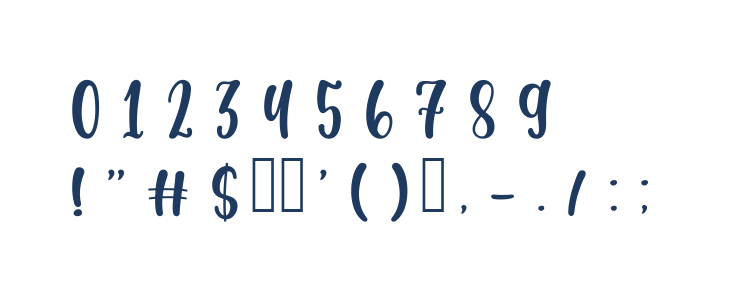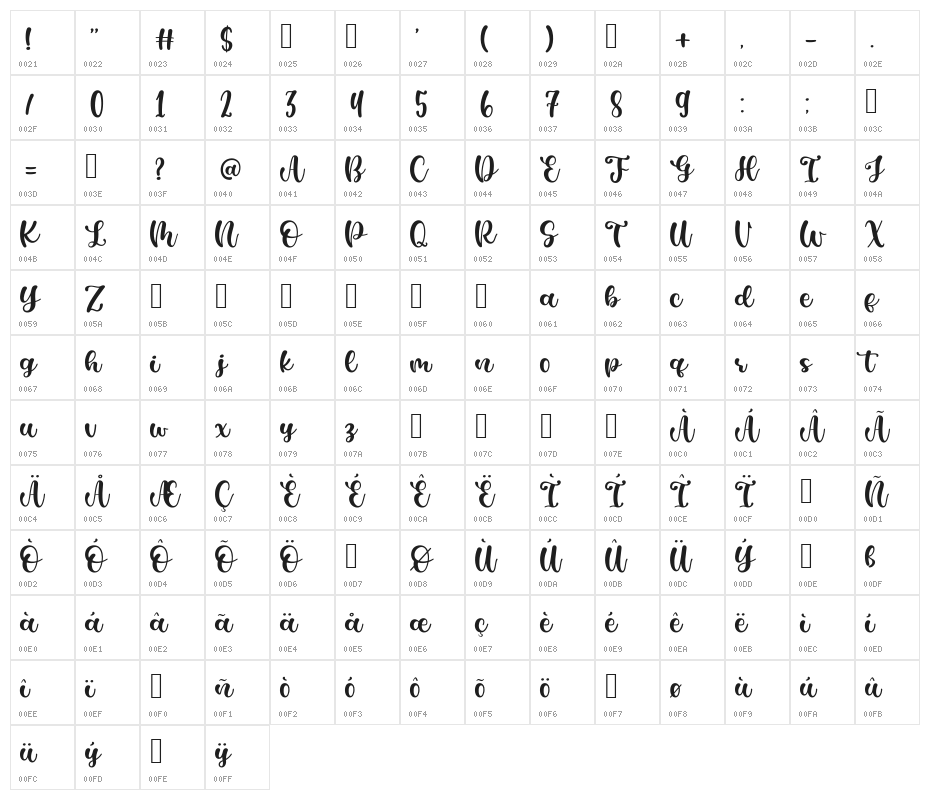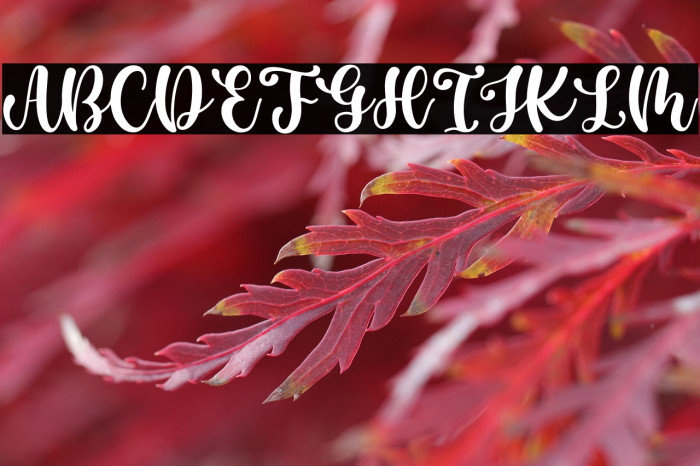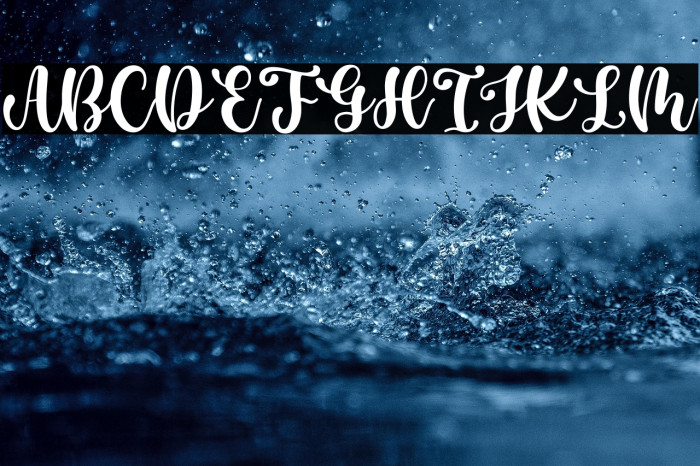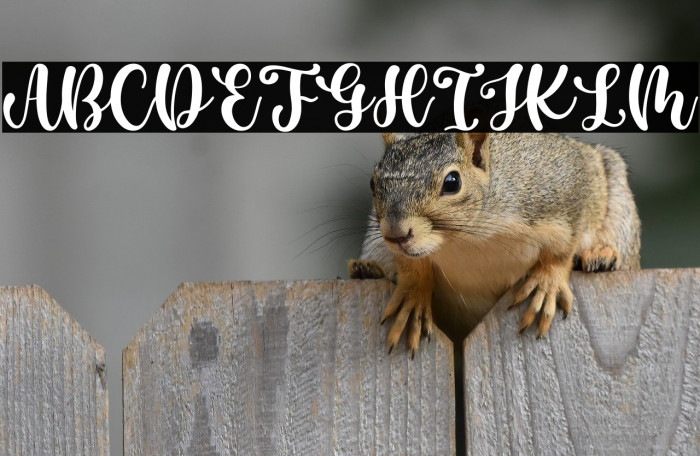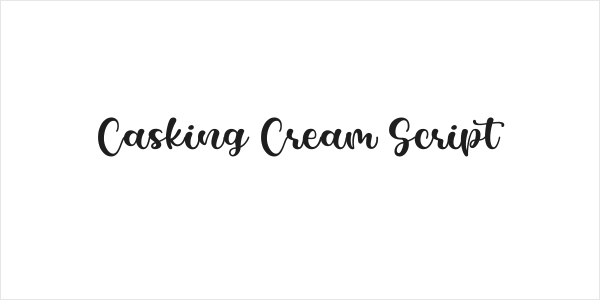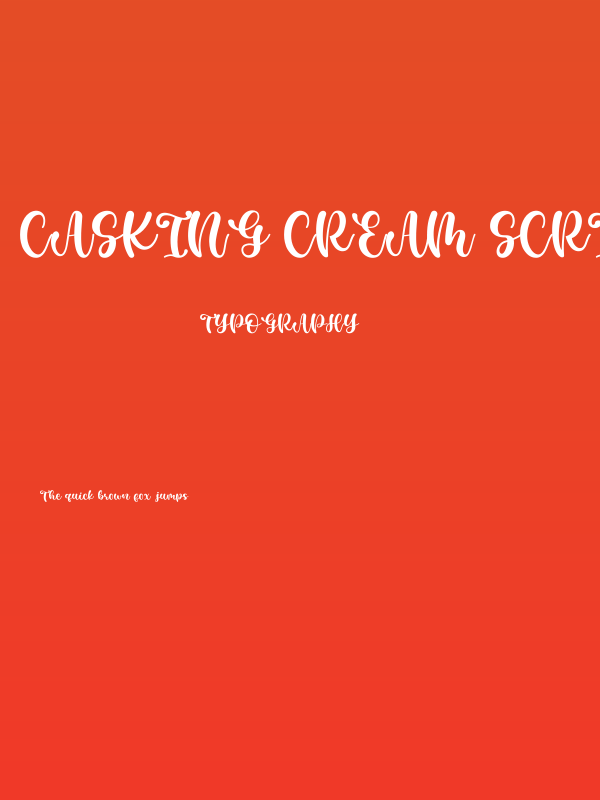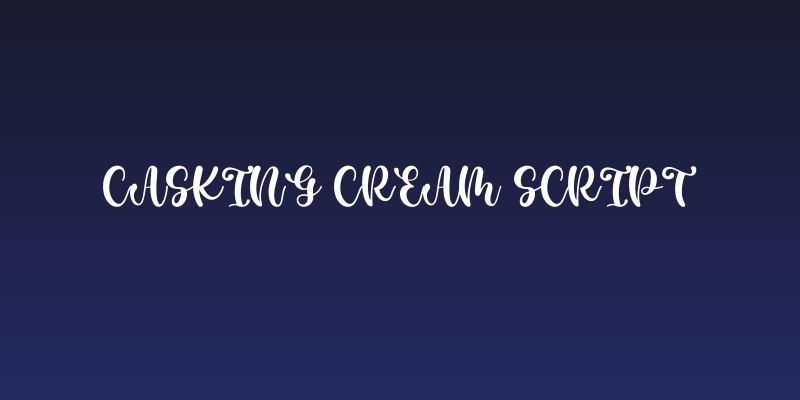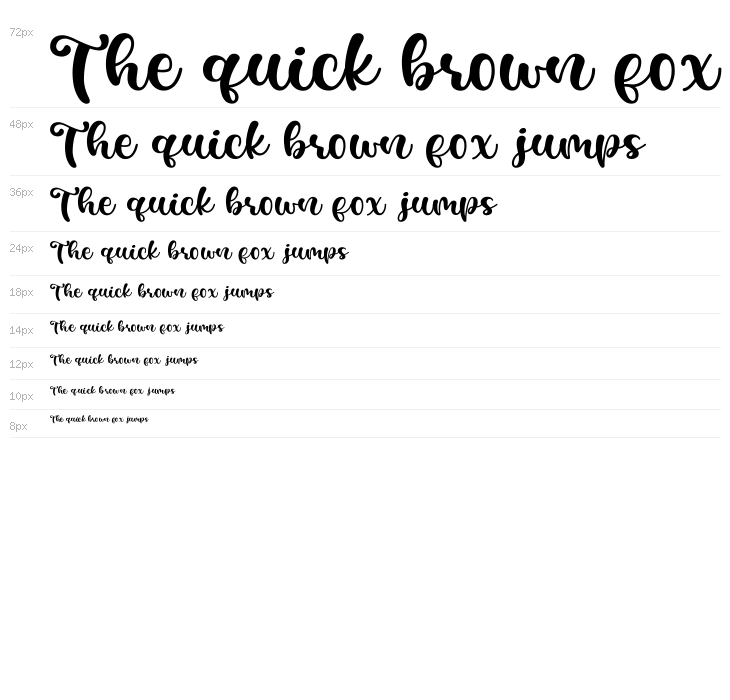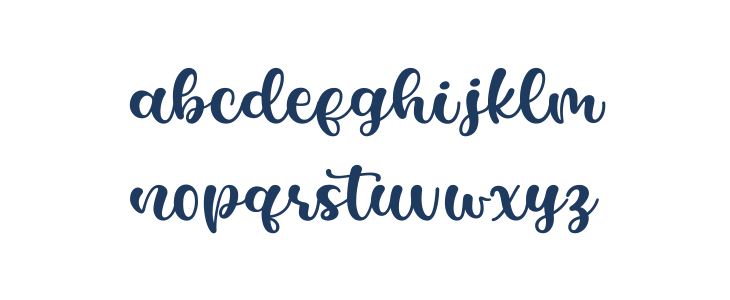
Casking Cream Script Font
Casking Cream Script Description
This font features a bold and flowing script style, characterized by its elegant curves and smooth connections between letters. The uppercase letters are ornate, with flourishes that add a touch of sophistication, while the lowercase letters maintain a consistent flow, enhancing readability. The numbers and special characters are designed to match the overall aesthetic, ensuring a cohesive look across all text elements. This font is ideal for projects that require a personal and artistic touch, such as invitations, greeting cards, and branding materials.
| Proposed Projects | Ideal for wedding invitations, greeting cards, branding, and artistic projects. |